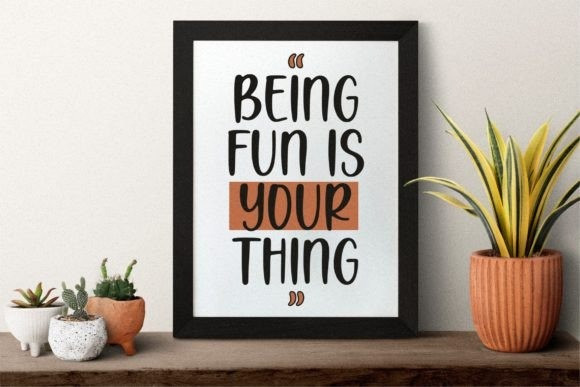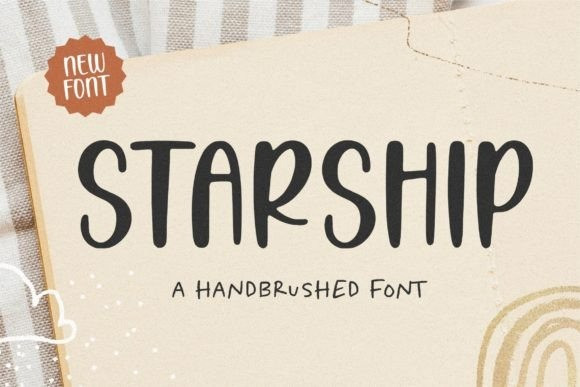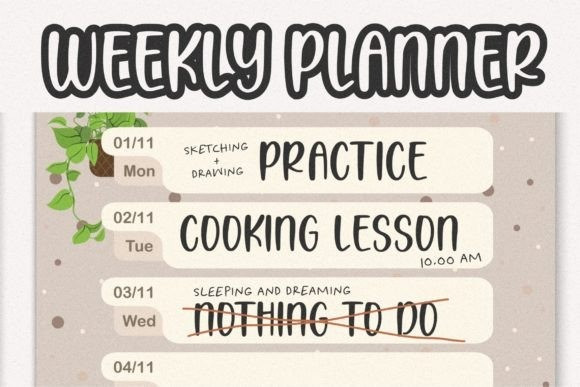
Starship Font
Starship Font is a fun and cool handwritten font. Whether you’re using it for crafts, digital design, presentations, or making greeting cards, this font has the potential to become your favorite go-to font, no matter the occasion!